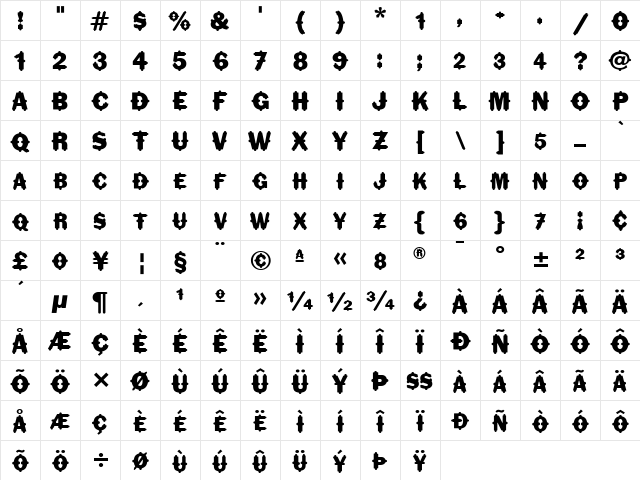
Complete Florinda ITC Black glyph index. Displaying only characters natively supported by Florinda ITC Black font.
Florinda ITC is a composed and adaptable typeface that performs quietly and consistently across a wide range of design contexts.